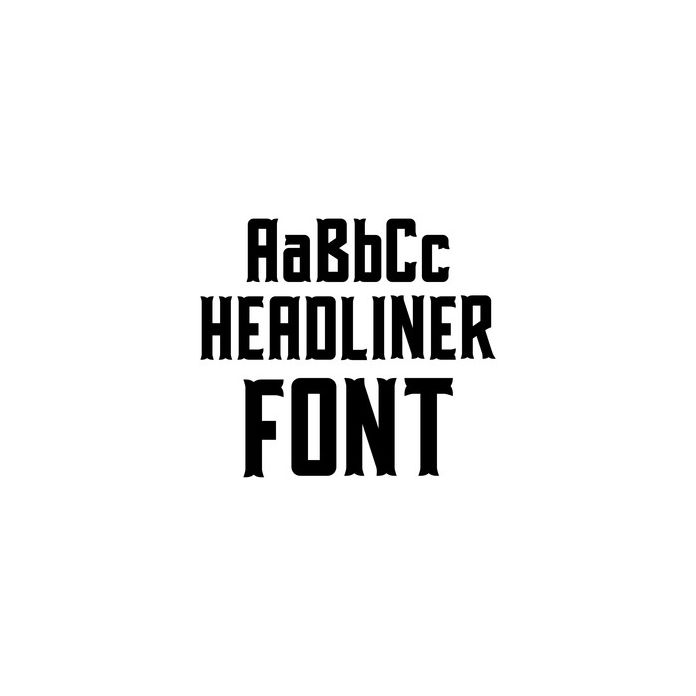
A sweet headline font with a vintage flair. Perfect for the holidays. For ideas and inspiration visit www.loriwhitlock.com and shop.loriwhitlock.com. For Lori's video tutorials visit www.youtube.com/loriwhitlock. For a full tutorials list visit www.loriwhitlock.com/blog/tutorials